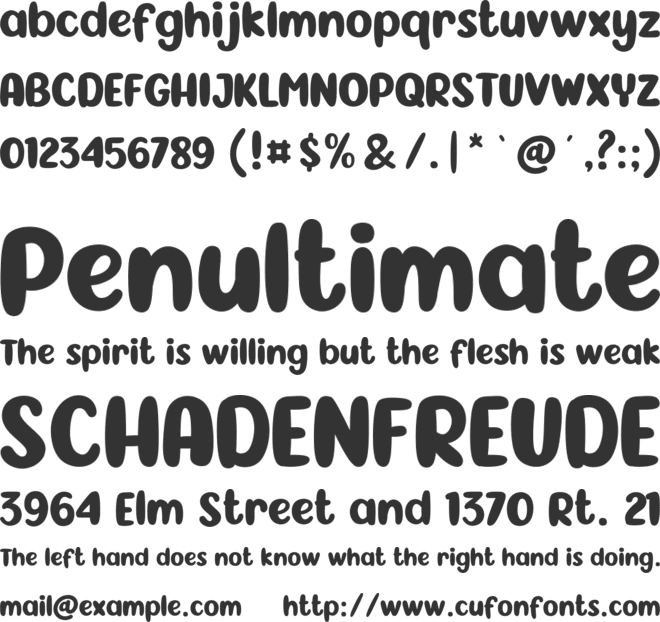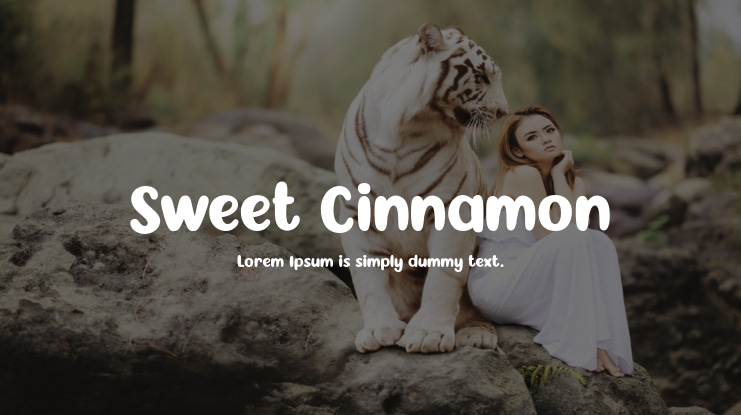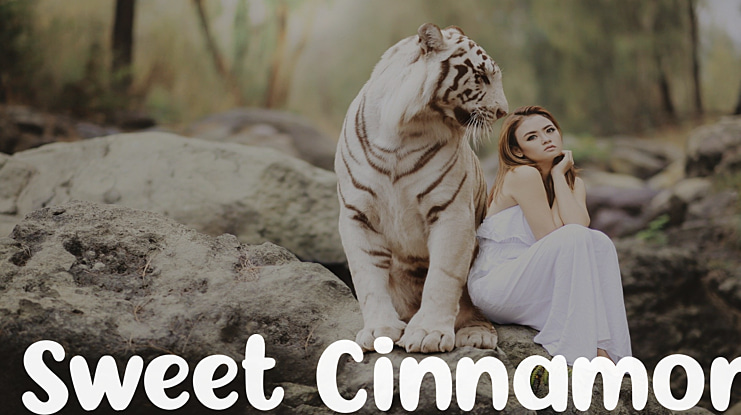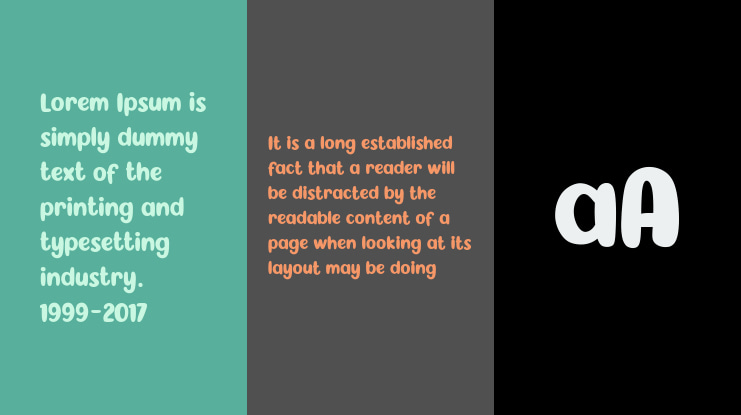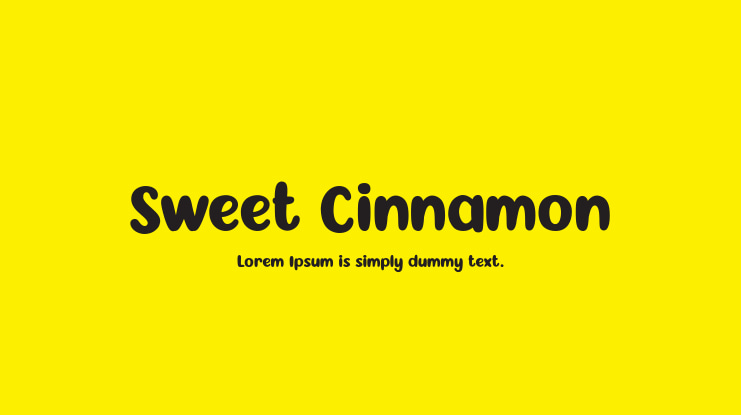
Sweet Cinnamon Font
Sweet Cinnamon is a simple, cute and playful font perfect for crafts. Add it to your fonts library, and use it to create great designs!